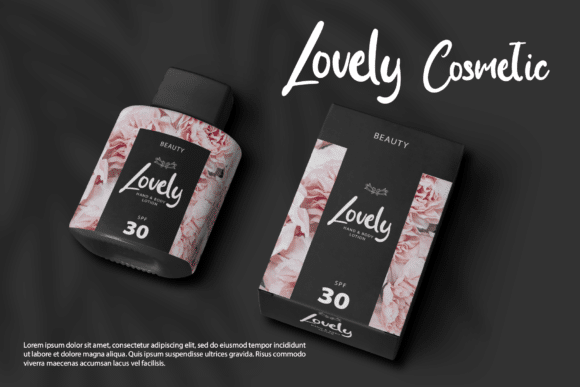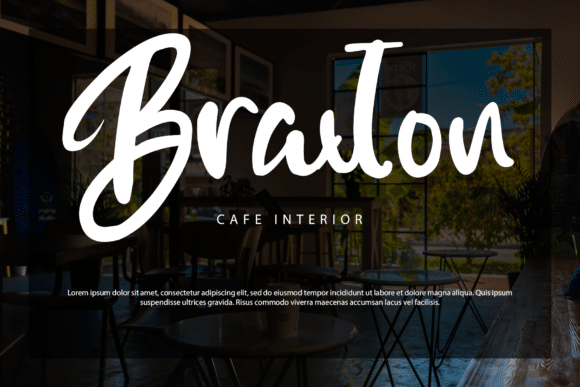
Hill Collosal Font
Hill Collosal is a modern and playful handwritten script font. It’s great for crafters and designers. Use this font for your designs and explore its endless possibilities.